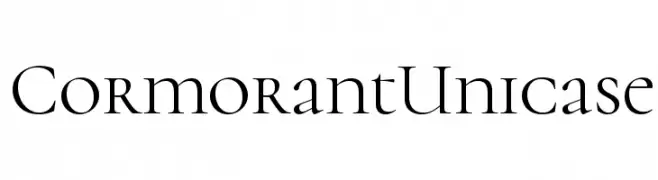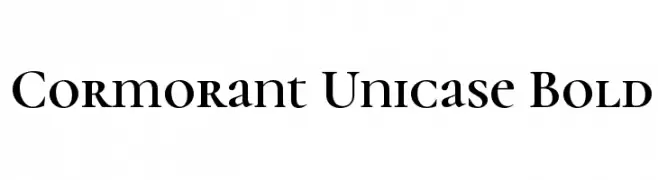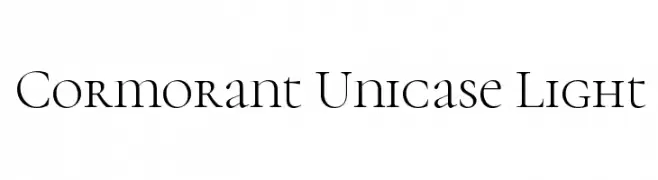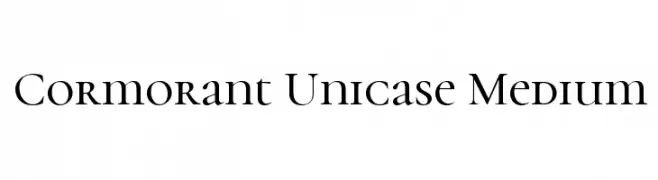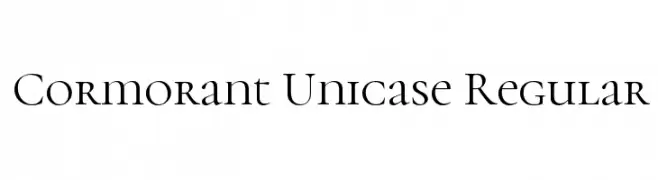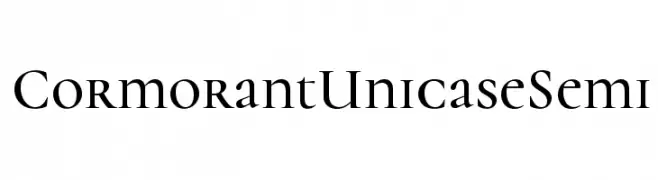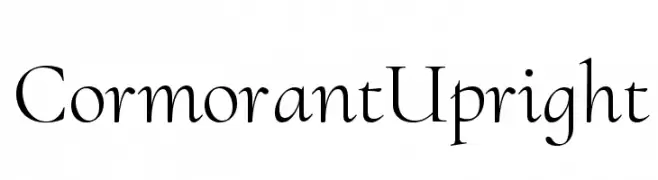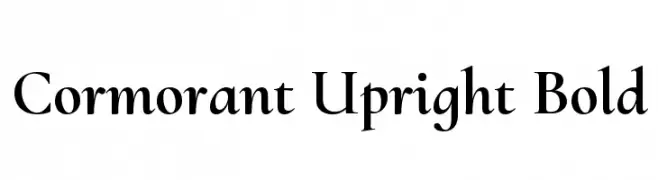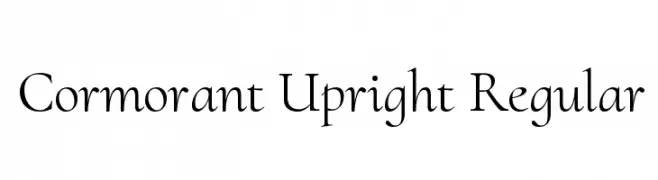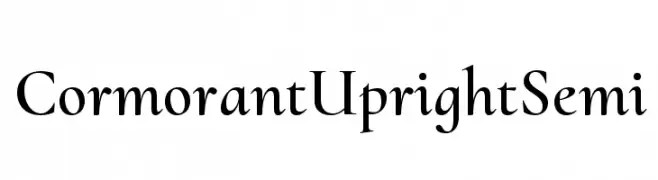
A classic serif font with elegant strokes and a semi-bold weight.
A semi-bold italic serif font with elegant and classic characteristics.
A sophisticated serif font with a unique unicase design and balanced proportions.
A high-contrast serif font with a unicase design, blending classic elegance with modern style.
A refined serif font with a unicase design and high contrast strokes.
A sophisticated serif font with a unique unicase style and elegant design.
A sophisticated serif font with medium contrast and a unique unicase style.
An elegant unicase serif font with medium contrast and balanced proportions.
A sophisticated serif font with high contrast and elegant serifs.
A classic serif font with elegant strokes and refined details.
A bold, elegant serif font with high contrast and classic styling.
A refined, elegant serif font with thin strokes and a classic touch.
A refined serif font with medium weight and elegant, upright letterforms.
An elegant and sophisticated serif typeface with classic proportions.
A classic serif font with elegant, refined letterforms and a modern twist.
A refined serif font with a semi-bold weight and elegant, upright style.
A classic serif font with elegant, refined lines and moderate contrast.